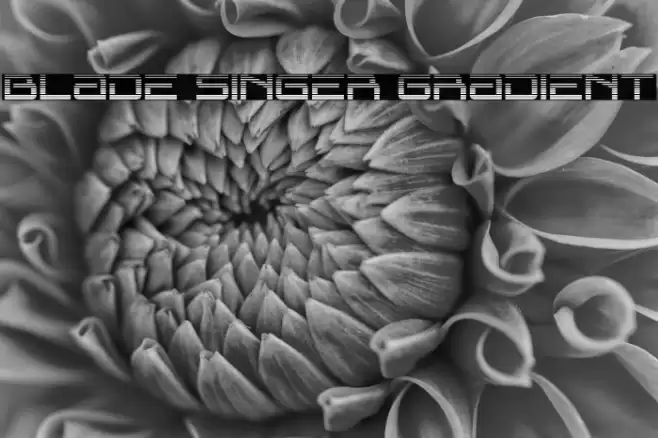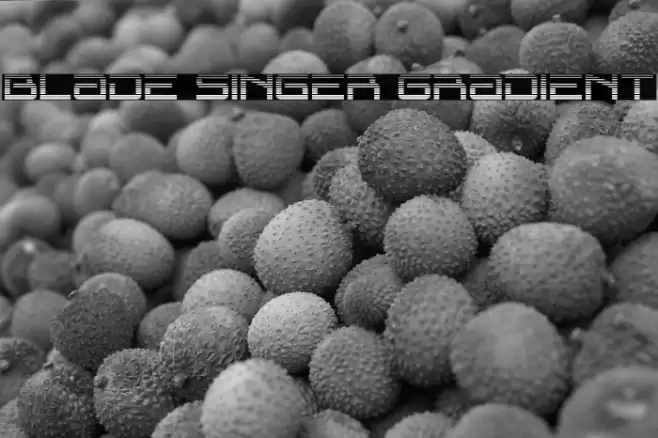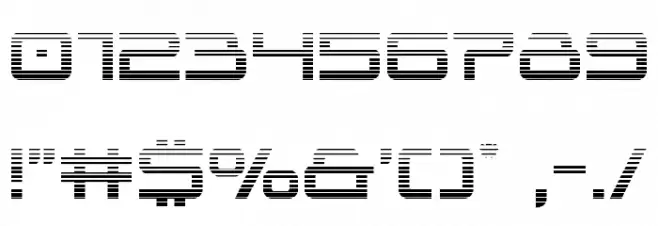
Blade Singer Gradient Font
Blade Singer Gradient Description
This font features a futuristic and digital aesthetic, characterized by its segmented and striped design. Each character is composed of horizontal lines that create a sense of movement and rhythm, reminiscent of digital displays or electronic circuits. The uppercase and lowercase letters maintain a consistent style, with sharp angles and a geometric structure. Numbers and special characters follow the same design principles, ensuring a cohesive look across all glyphs. The font's unique appearance makes it stand out, suitable for projects that require a modern and tech-inspired feel.
A futuristic, segmented font with a digital and electronic aesthetic from Uncategorized fonts.
- Proposed Projects: Ideal for technology branding, sci-fi movie posters, video game titles, and digital interfaces.